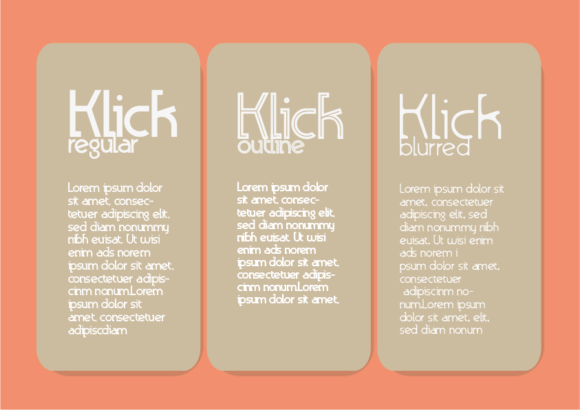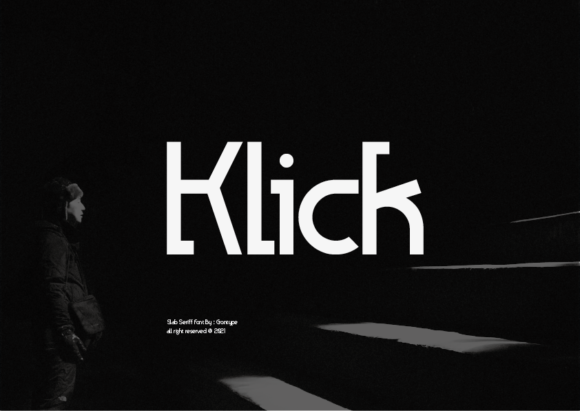
Introduction to Klick Font
Klick is a cool and interesting slab serif font.
Simple but with a strong visual effect, this font will instantly make your creation more appealing than any others .
Key Features of Klick Font
Why Choose Klick Font?